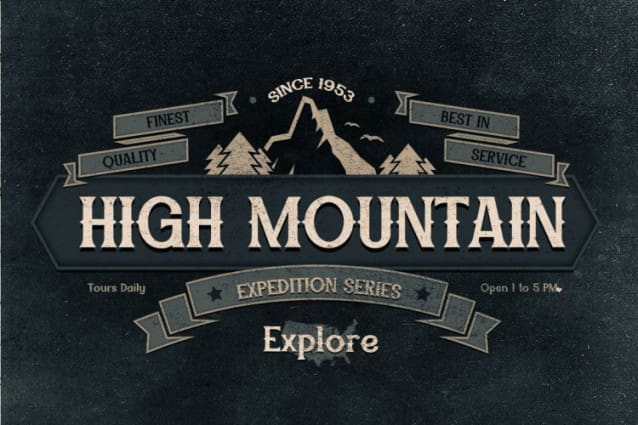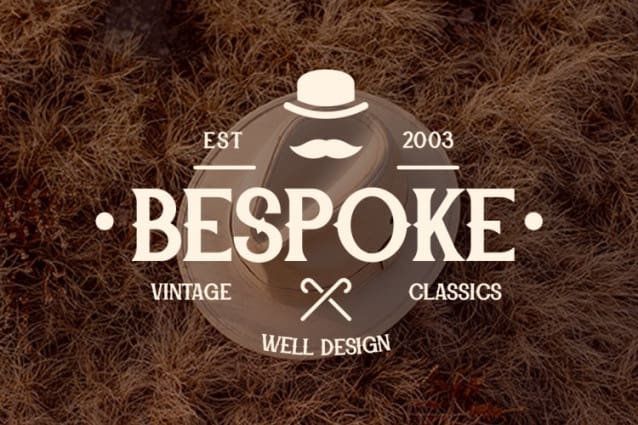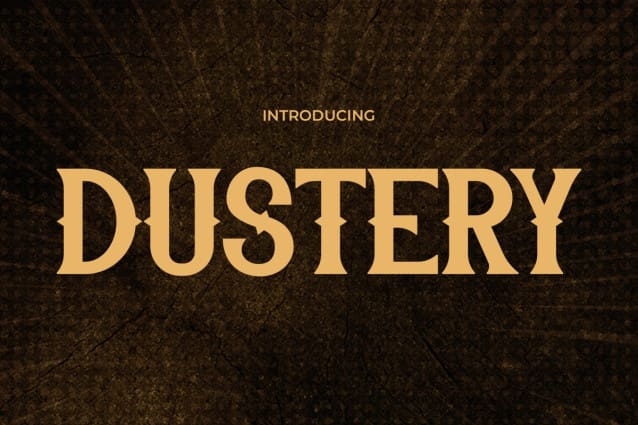
Dustery Vintage Font
Dustery Vintage Font, This font is perfect for stickers, retro projects, craft projects, shirts, svg designs, procreate designs, branding, blogs, logos, invitations and more!